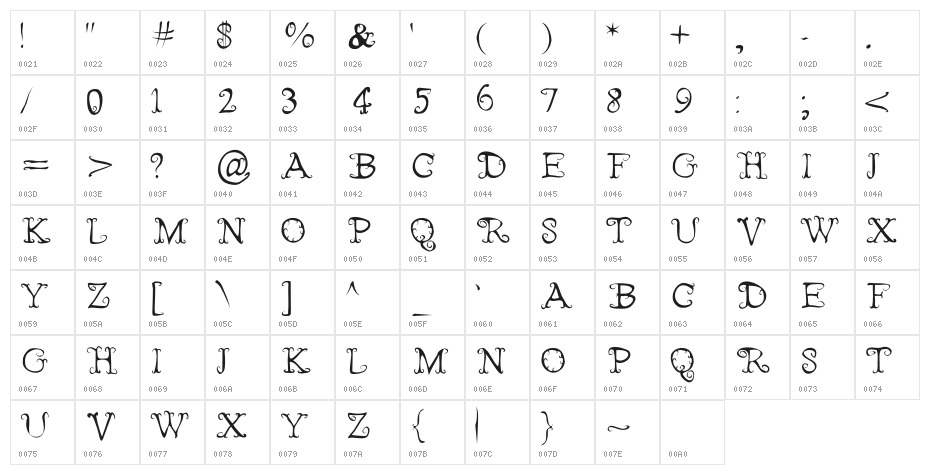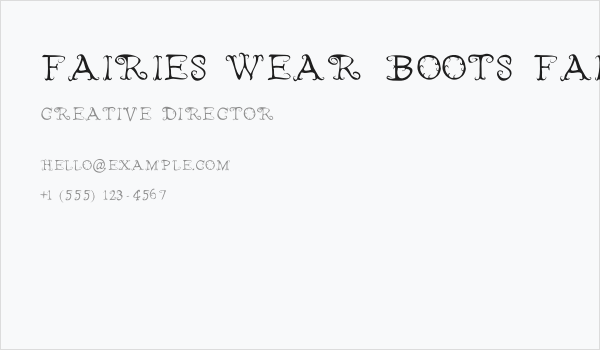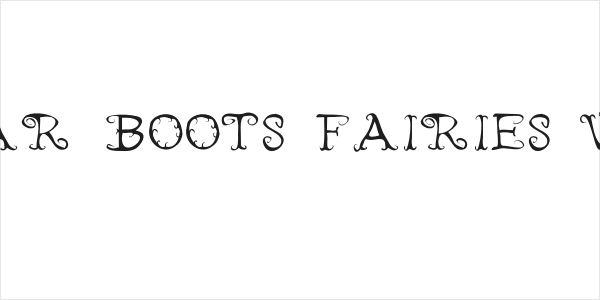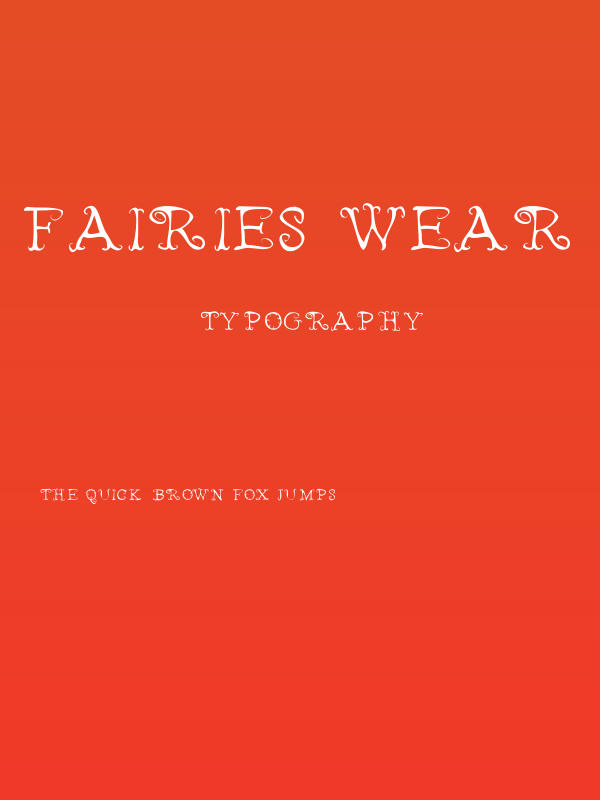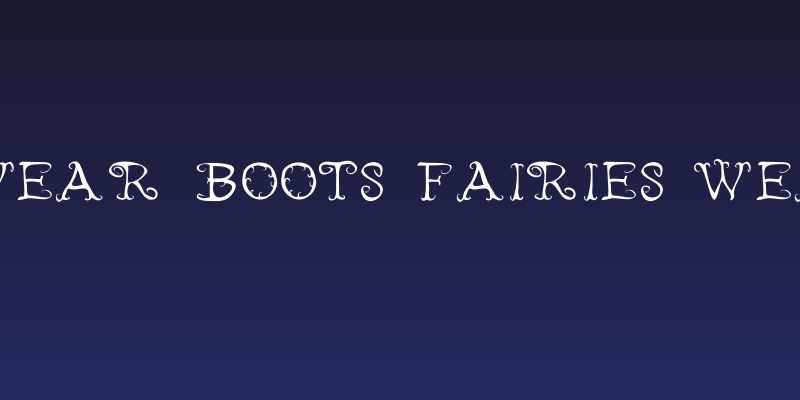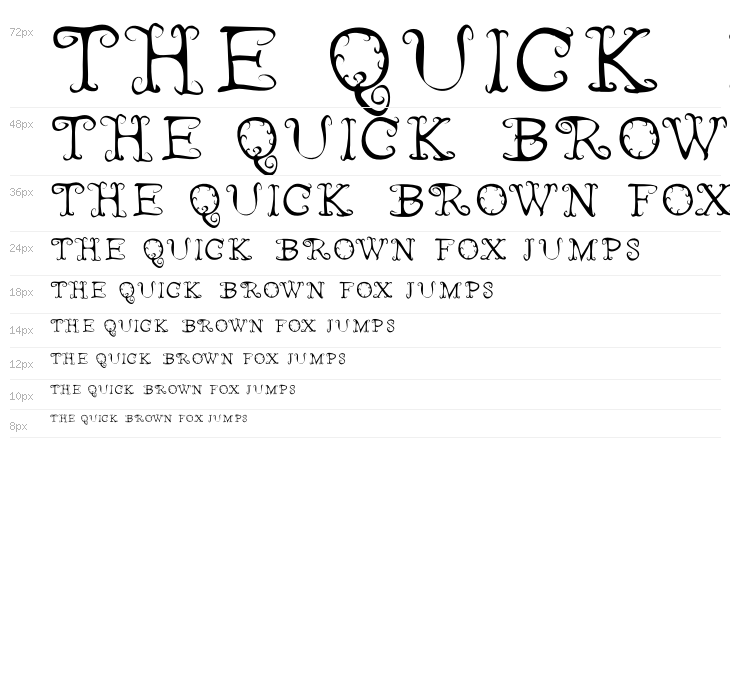
Fairies Wear Boots Font
Fairies Wear Boots Description
This font features a whimsical and decorative style, characterized by its playful curls and flourishes on each letter. The uppercase and lowercase letters maintain a consistent design theme, with exaggerated serifs and ornamental elements that give it a fairy-tale or fantasy appearance. The numbers and special characters follow the same decorative pattern, ensuring a cohesive look across all glyphs. This font's unique style makes it stand out, adding a touch of magic and creativity to any design project.
| Use Case | Headlines, Logos, Decorative text |
| Proposed Projects | Ideal for fantasy-themed projects, children's books, greeting cards, and whimsical branding. |